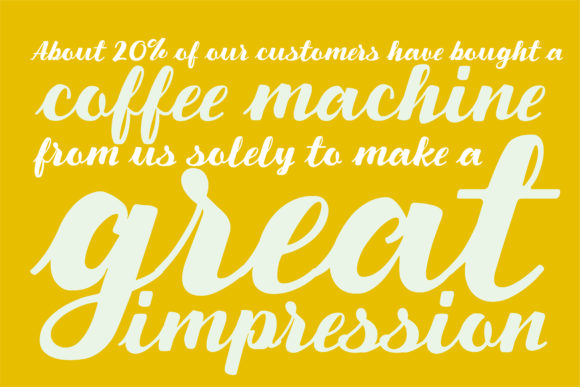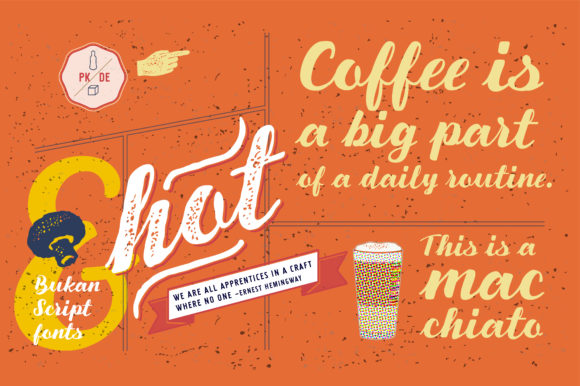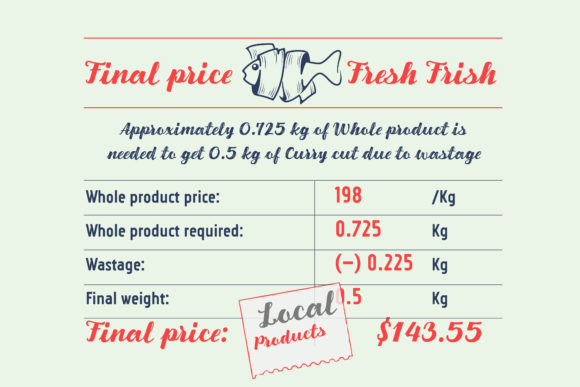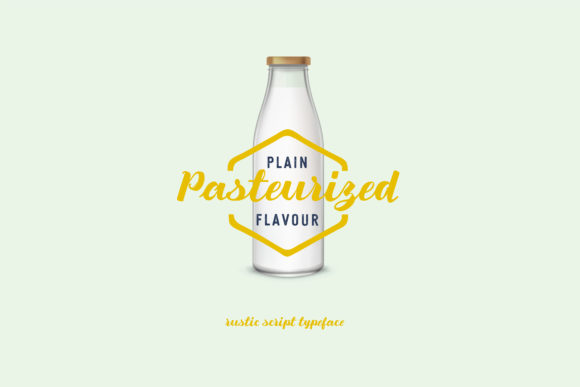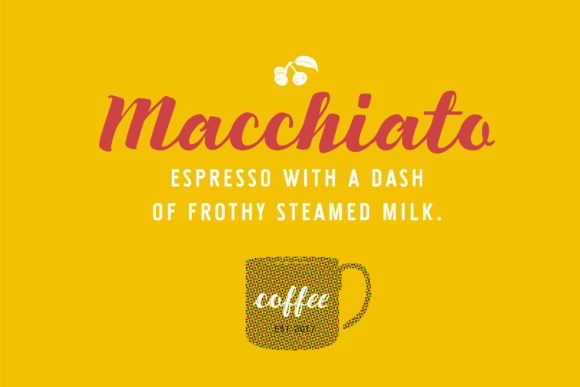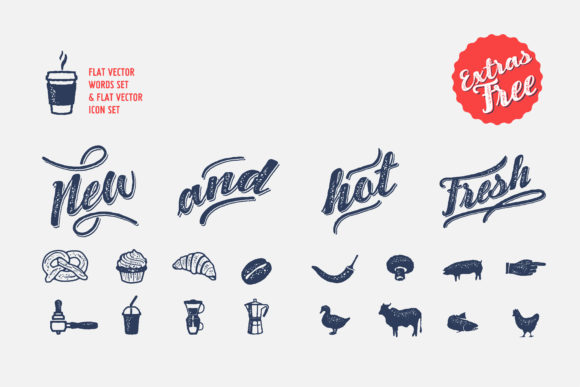
Introducing Bugan Script Font: A Playful Handwritten Typeface for Creative Designs
In the world of typography, a well-designed font can make all the difference in creating a lasting impression. For designers and crafters looking for a unique and eye-catching typeface, Bugan Script Font is an excellent choice. This playful handwritten font is perfect for creating headline display texts, logos, branding, advertising, and more. In this article, we’ll dive into the features and benefits of Bugan Script Font and explore its various uses.
What is Bugan Script Font?
Bugan Script Font is a modern handwritten typeface that boasts bold, clean, and vintage-inspired characters. Its playful and elegant design makes it an ideal choice for a wide range of creative projects. The font’s unique style is characterized by its flowing lines, rounded edges, and subtle imperfections, giving it a charming and handcrafted feel.
Key Features of Bugan Script Font
- Bold and Clean Design: Bugan Script Font features bold and clean characters that are easy to read and visually appealing.
- Vintage-Inspired: The font’s vintage-inspired design gives it a classic and timeless feel that’s perfect for creating nostalgic and retro-style designs.
- Playful and Elegant: Bugan Script Font strikes the perfect balance between playfulness and elegance, making it suitable for a wide range of design projects.
- Highly Versatile: This font is highly versatile and can be used for various design projects, from headline display texts to logos, branding, and advertising.
Uses of Bugan Script Font
Bugan Script Font is an incredibly versatile typeface that can be used for various design projects, including:
- Headline Display Texts: Use Bugan Script Font to create eye-catching headline display texts that grab attention and make a lasting impression.
- Logos and Branding: This font is perfect for creating unique and memorable logos and branding materials that reflect your brand’s personality.
- Advertising: Bugan Script Font can be used to create effective and engaging advertisements that stand out from the crowd.
- Food Industry: This font is ideal for food-related businesses, such as restaurants, cafes, and food blogs, where a playful and appetizing design is essential.
- Apparel Design: Use Bugan Script Font to create stylish and trendy apparel designs that appeal to fashion-conscious audiences.
- Labels and Packaging: This font is suitable for creating labels and packaging designs that require a clear, readable, and visually appealing typeface.
Why Choose Bugan Script Font?
With so many fonts available, why choose Bugan Script Font? Here are a few reasons:
- Unique Design: Bugan Script Font boasts a unique and distinctive design that sets it apart from other fonts.
Bugan Script Font is a playful handwritten typeface that’s perfect for designers and crafters looking for a unique and eye-catching font. Its bold, clean, and vintage-inspired design makes it suitable for a wide range of creative projects, from headline display texts to logos, branding, and advertising. With its ease of use, high-quality design, and support for multiple languages, Bugan Script Font is an excellent choice for anyone looking to add a touch of personality and style to their designs.
Whether you’re a seasoned designer or a crafty DIY enthusiast, Bugan Script Font is sure to inspire your creativity and help you create stunning designs that leave a lasting impression.